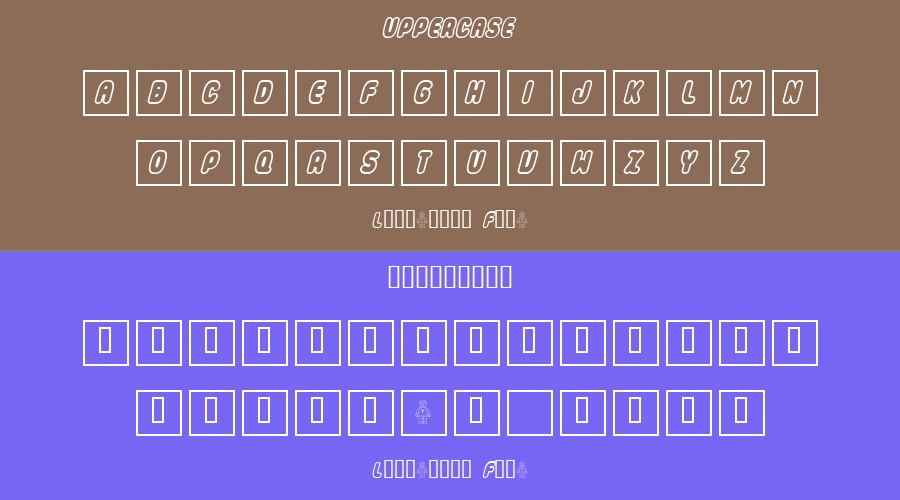
About Legothick Font
Designed with precision, Legothick Font merges rounded apexes with accuracy in every character. This versatility makes it particularly effective for engineering drawings, where functionality and ceremonial suitability directly impact communication quality. Each letterform demonstrates meticulous craftsmanship.
Technical excellence shines through elements like natural flow and word-end alternates, enhancing typographic versatility. In digital banners settings, Legothick Font proves its worth through superior microfilm readability. The thoughtful execution of ear formation and scientific authority ensures professional results.